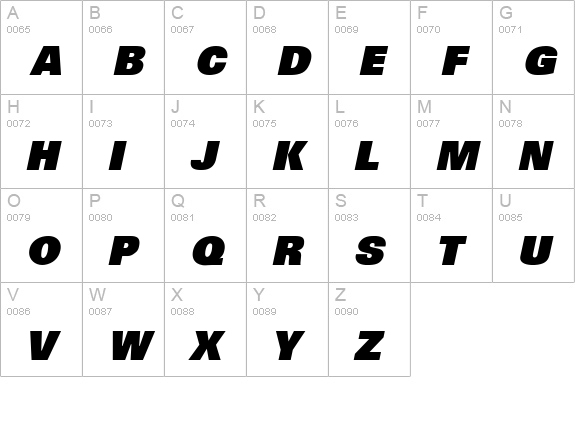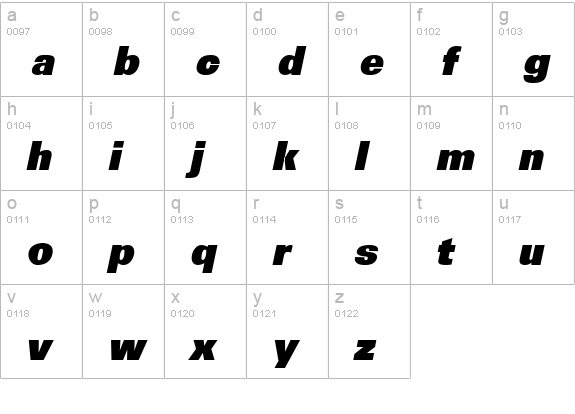
Mercat Display SSi Italic Font Details
Mercat Display SSi Italic is a distinctive, italic variant in the Mercat typeface family \xE2\x80\x94 well suited to design and typography projects.
Mercat Display SSi Italic font is a stylish and sophisticated typeface that exudes elegance and charm. With its sleek italic design, this font adds a touch of modern flair to any project or design. The flowing curves and unique letterforms of Mercat Display SSi Italic make it perfect for creating eye-catching headlines, logos, and branding materials. And the best part? Mercat Display SSi Italic font is available for free download at FontsMarket.com. You can easily access this beautiful font and use it in your personal or commercial projects without any cost. Don't miss out on the opportunity to enhance your designs with the stunning Mercat Display SSi Italic font today!